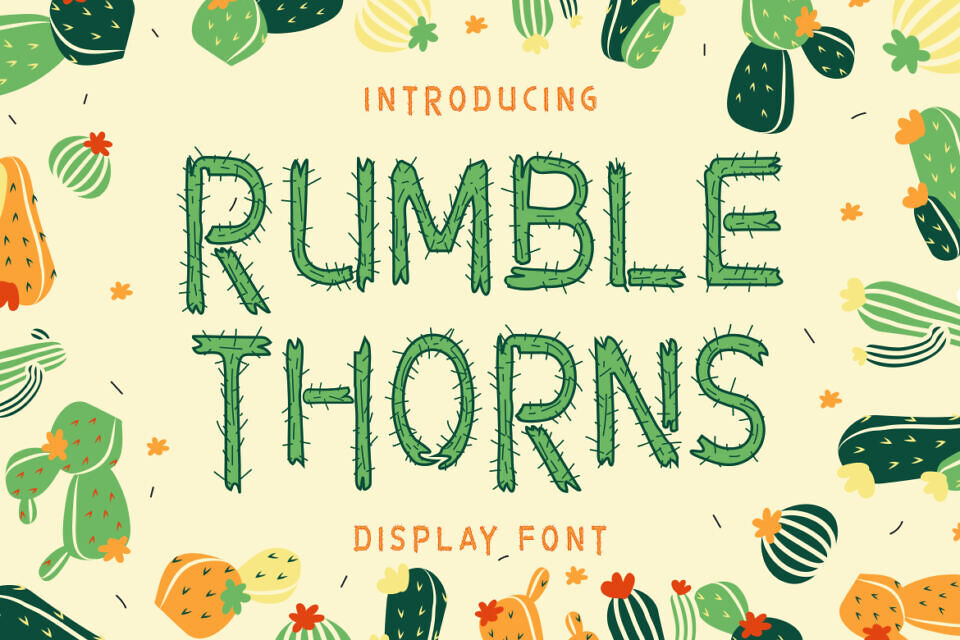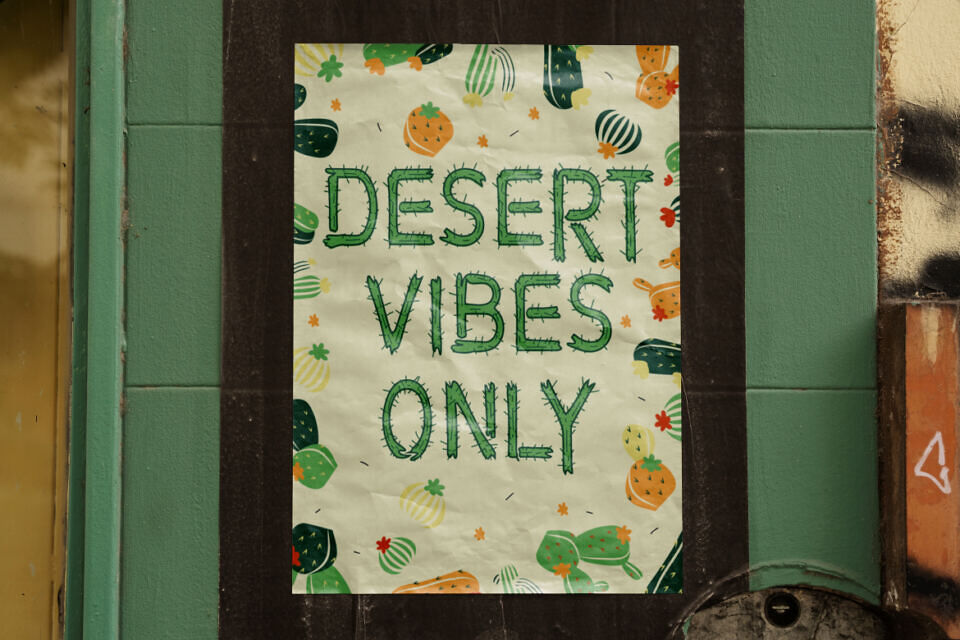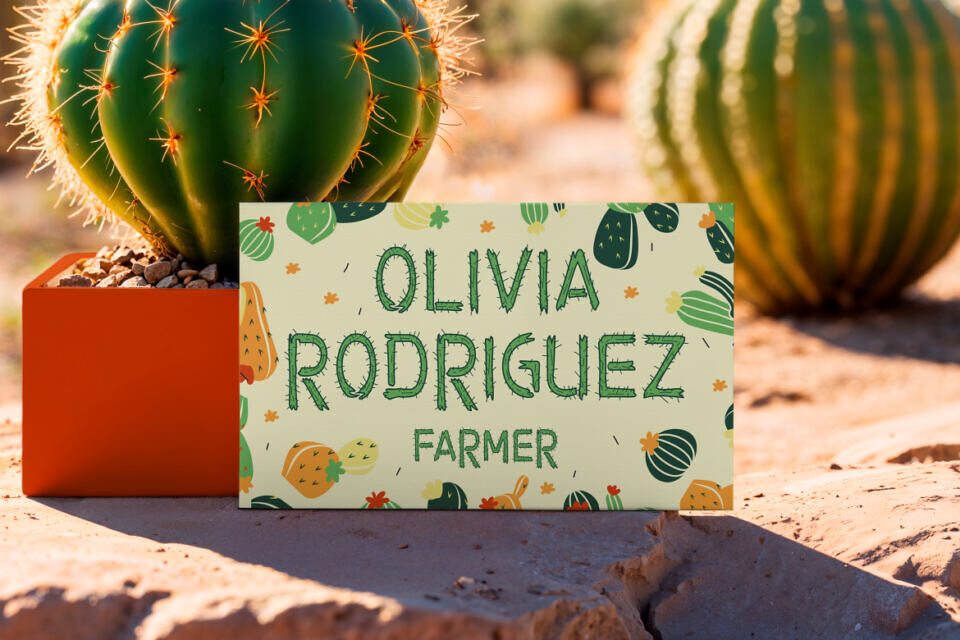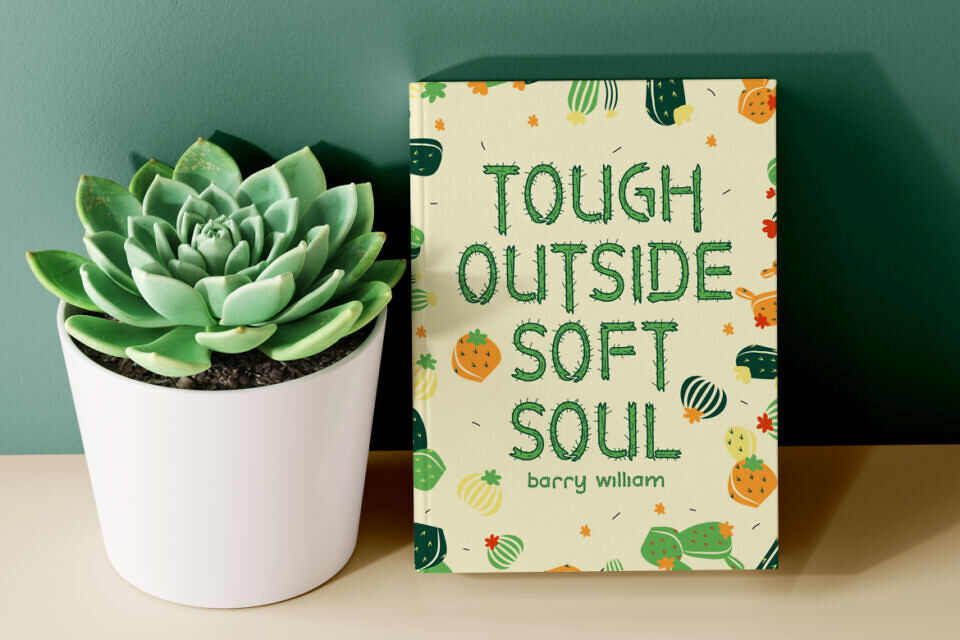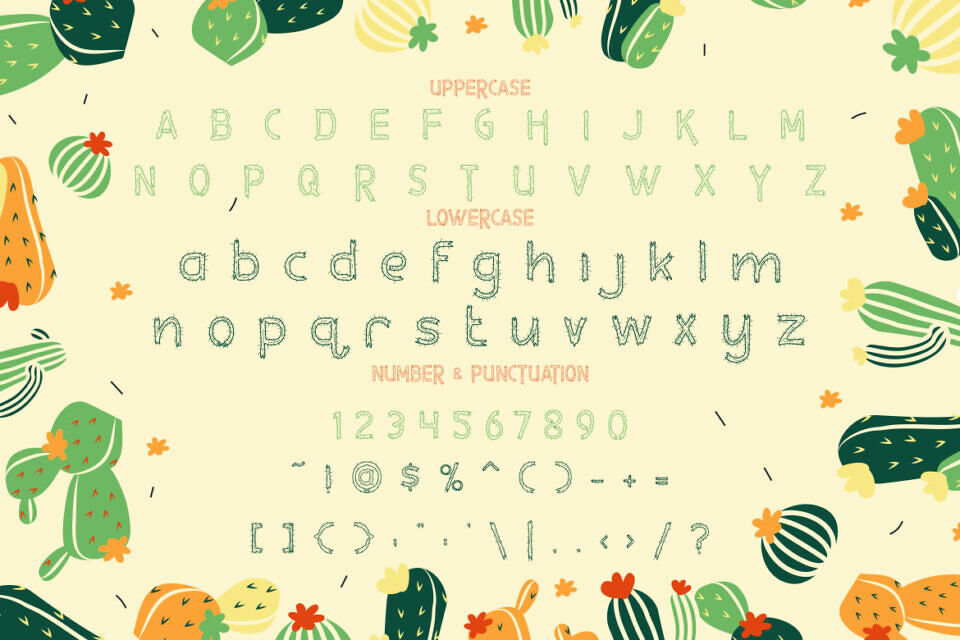
Rumble Thorns Font
Rumble Thorns is a delightfully quirky cactus-inspired display font that brings the spirit of the desert to life. Each character is crafted with sharp, lively spikes that emulate real cactus thorns, giving the font a playful yet rugged charm.
The bold strokes and hand-drawn textures offer a whimsical feel, making it ideal for standout titles and decorative designs. From posters to business cards, this font adds personality wherever it’s used. Designed for designers and creatives seeking something unique and thematic, Rumble Thorns perfectly embodies the balance between nature and creativity.